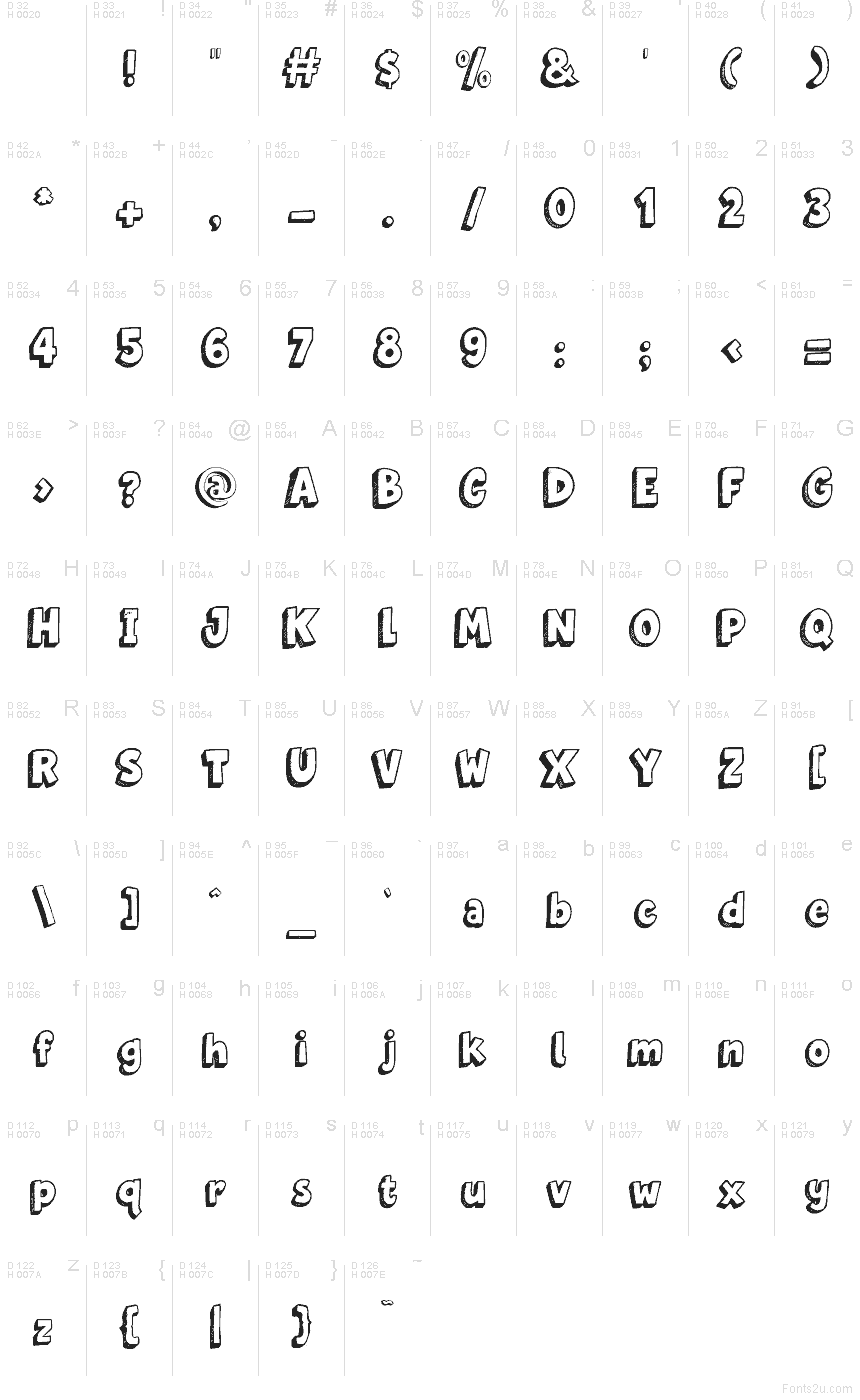
The Magic Cookie by BlackFridayFont is a free cartoon 3D display font with chunky, uneven letters, rounded corners, and a lively outline that looks drawn in ink. Quick hatched marks roughen the deep, offset shadows.
A children's snack package would make especially good use of its cheerful weight and comic-book finish, with party posters and playful merchandise offering similarly fitting settings. The dark shadow can become part of an illustrated badge or shop sign, linking the words to doodles, mascots, and bold line art instead of leaving them as neutral type.
The Magic Cookie